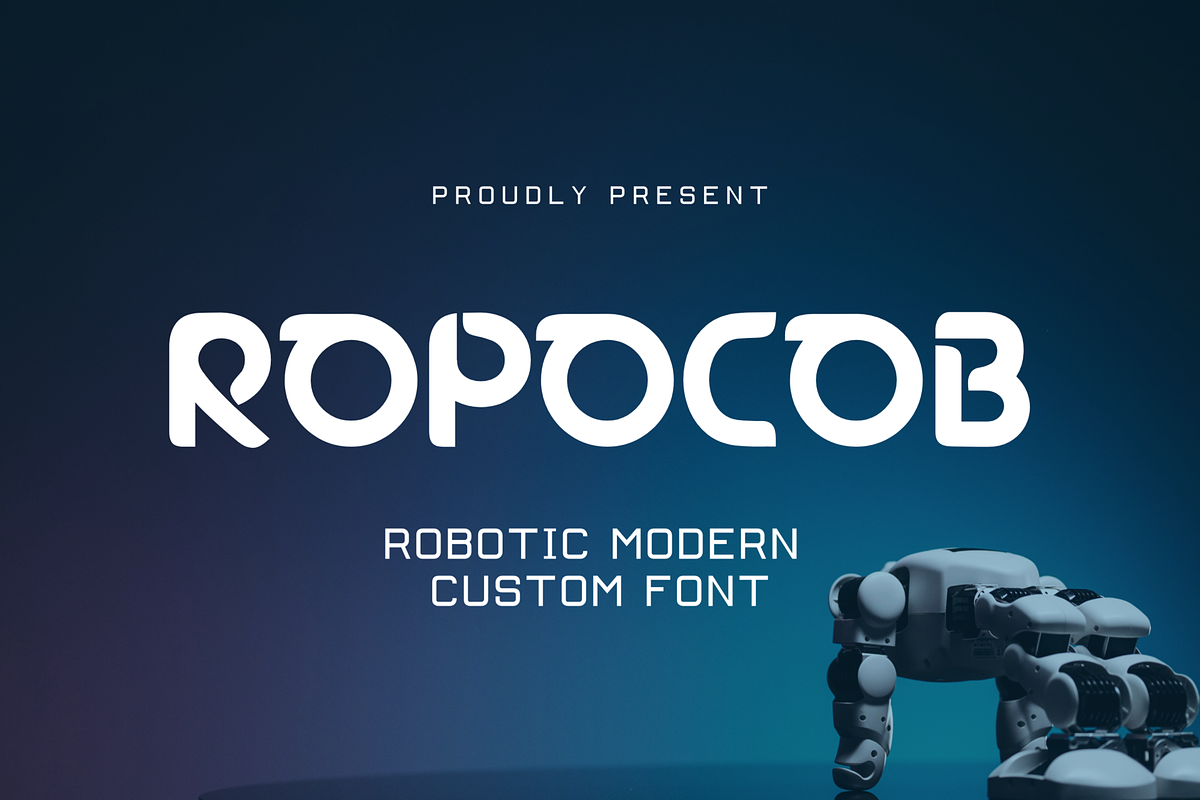
Ropocob | Robotic Modern Custom Font Free Download
Ropocob | Robotic Modern Custom Font Free Download is a futuristic and sleek typeface designed with cutting-edge, robotic aesthetics in mind. Perfect for tech branding, sci-fi posters, product packaging, and digital interfaces, this font brings a high-tech vibe and modern appeal to your projects.
With its sharp lines, geometric forms, and modern flair, Ropocob | Robotic Modern Custom Font Free Download is ideal for designers looking to create bold and futuristic visuals. Whether you're crafting a tech logo, designing a sci-fi movie poster, or developing an app interface, Ropocob gives your designs a sleek, robotic edge. Try it in your next project to experience its innovative style—then upgrade to a commercial license when you’re ready to go live.